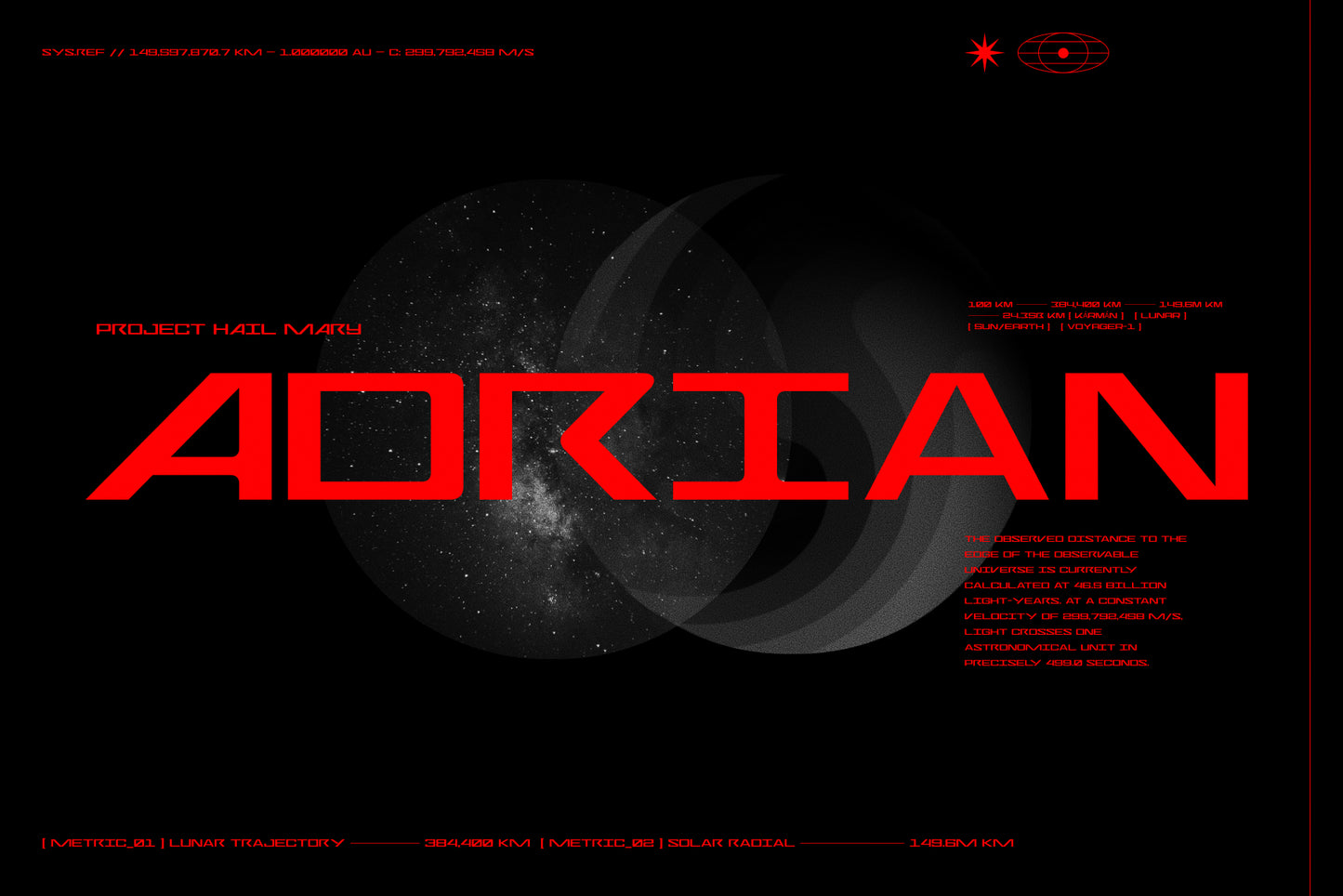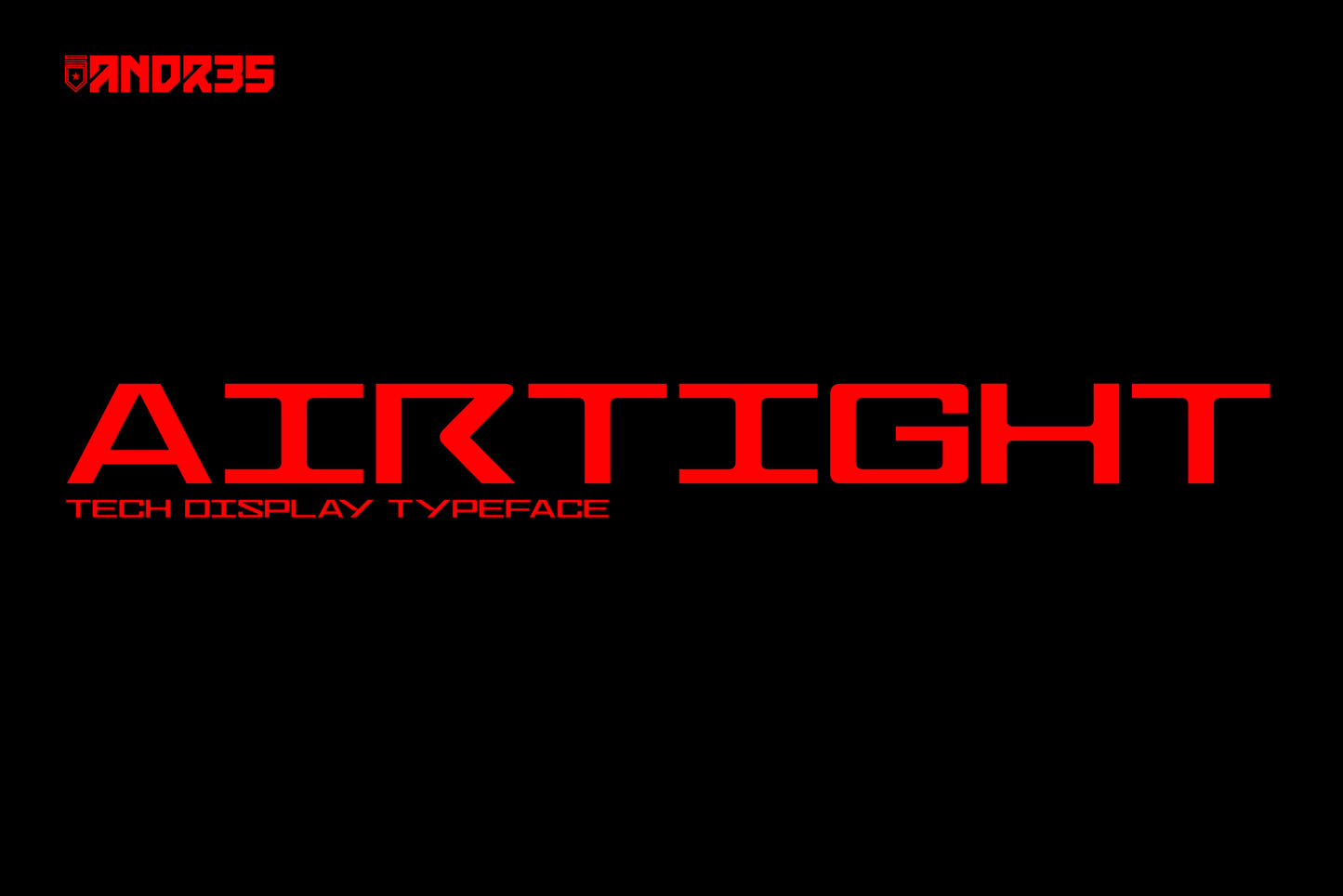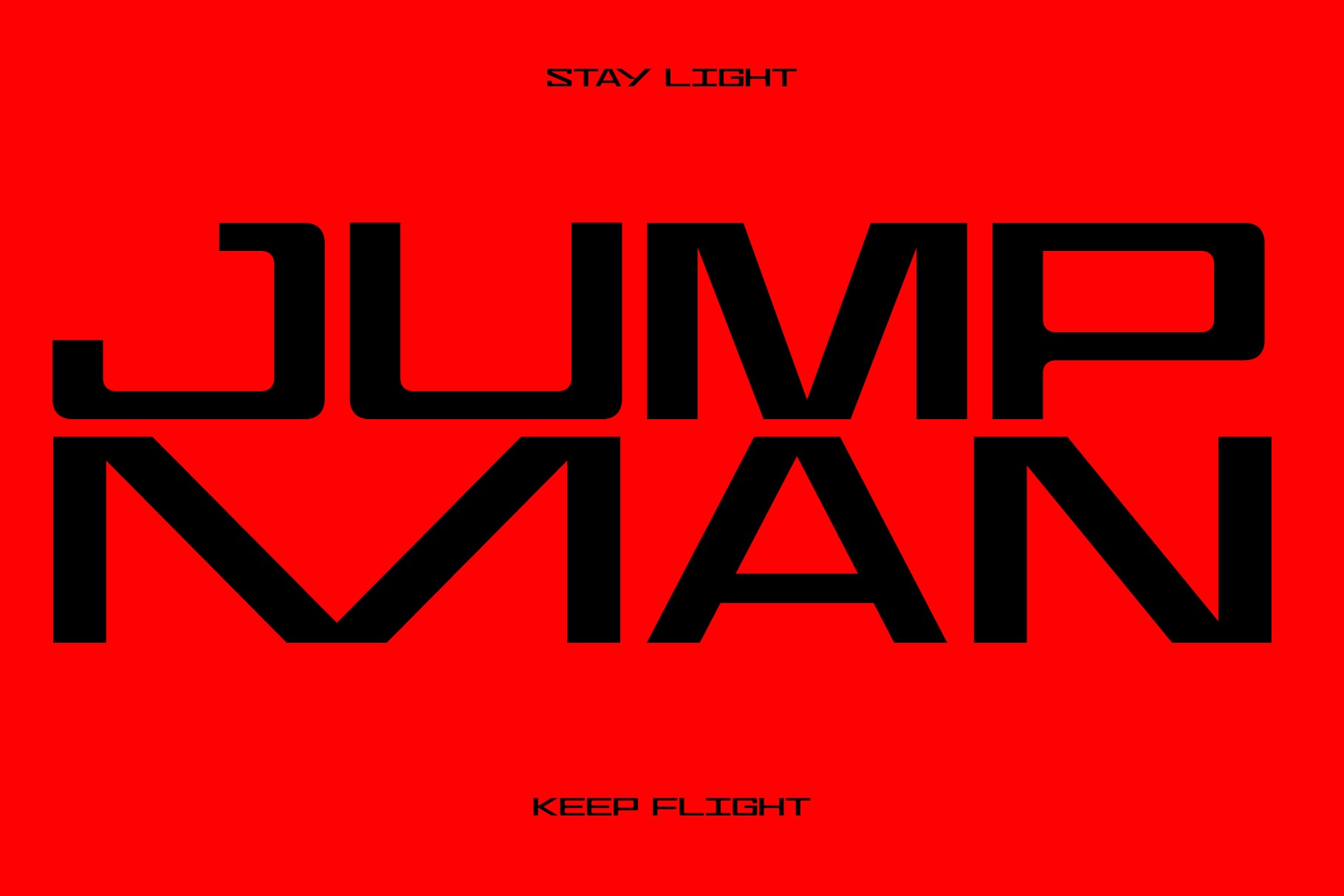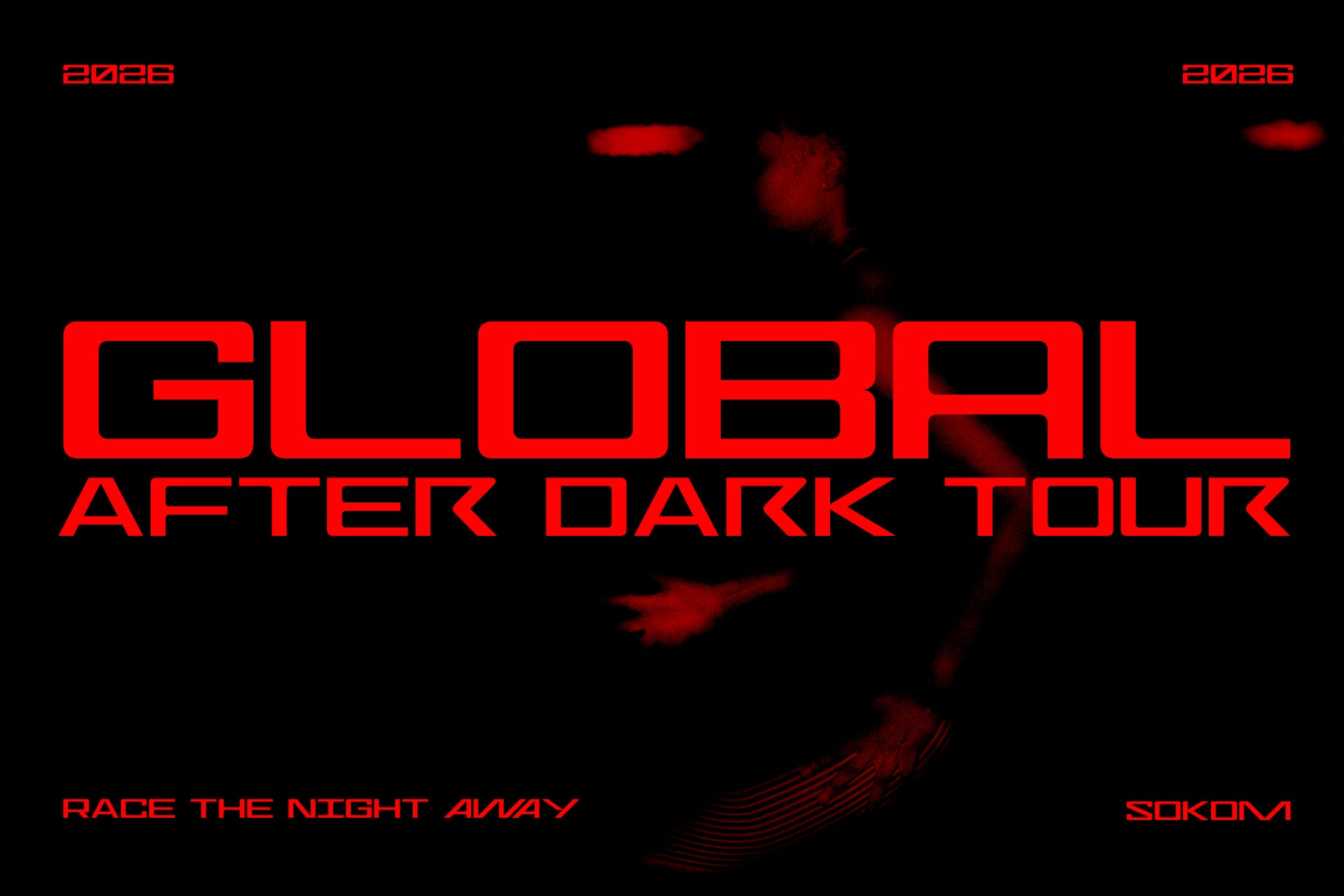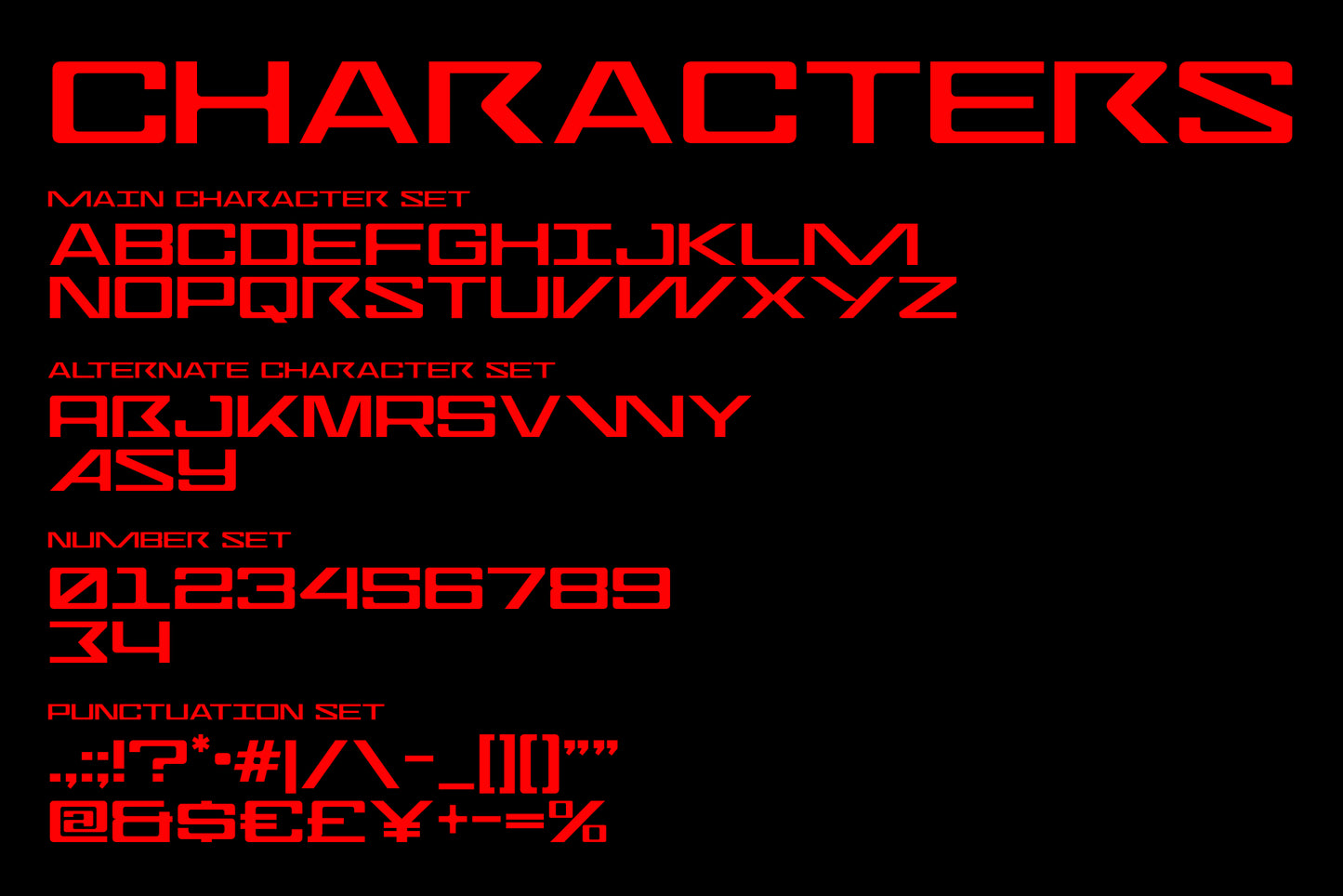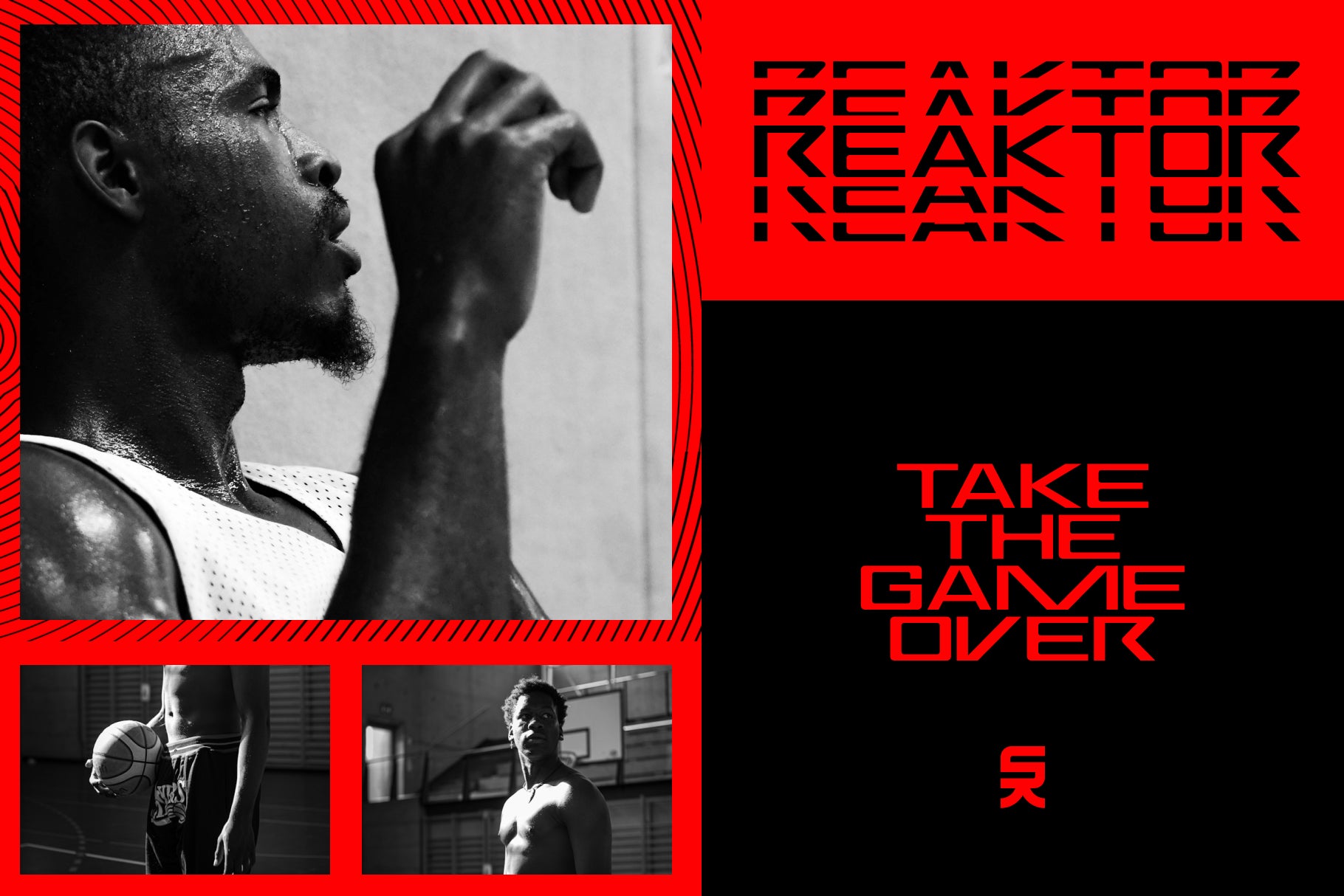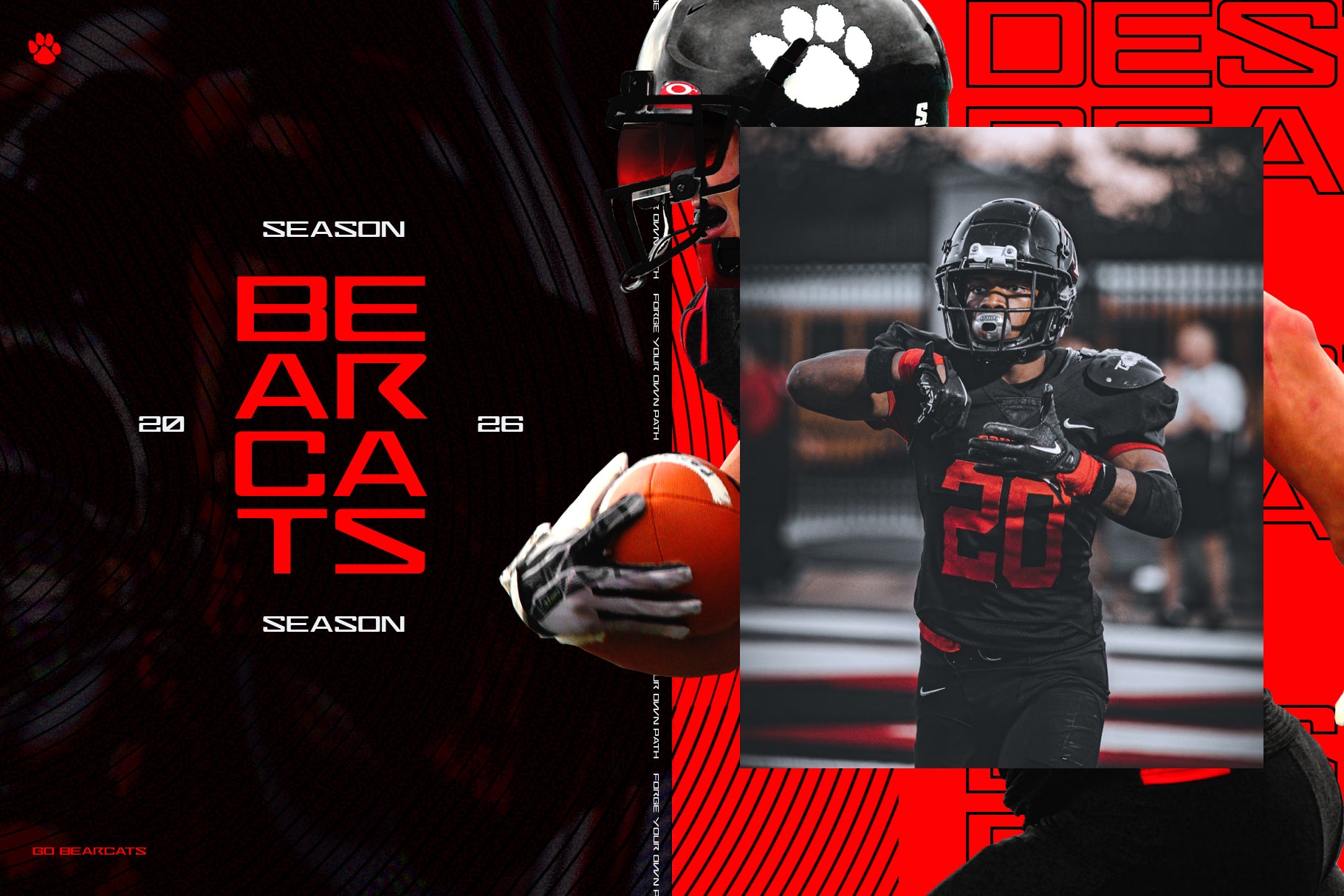
Airtight Display Font
Airtight is a wide, low-profile display typeface engineered to take up space and command attention. Designed around a modern grid structure, Airtight fuses raw performance sportswear aesthetics with a sleek, high-tech industrial edge.
Inspired by the historic, custom typography of Nike and Jordan Brand, Airtight features stretched horizontal proportions and subtle, soft-cornered terminals. The result is a look that feels locked-in, fast, and structurally indestructible, perfect for sports branding, automotive design, and futuristic tech layouts.
Custom Stylized Alternates
While built as a single, high-impact weight, Airtight includes a set of custom alternate glyphs (including stylized forms for A, R, J, K, M, S, V, W, Y). Swap these in to instantly shift your design from clean athletic apparel to aggressive, sci-fi/esports graphics.
Sports & Gym Apparel: Center-chest graphics, jersey numbers, and training gear lockups.
Motorsport & Automotive: Livery graphics, supercar concept branding, and racing sponsor graphics.
Tech & Esports: Gaming UI, sci-fi poster titles, hardware packaging, and stream graphics.
Events & Editorial: Nightlife tour posters, album covers, and wide-grid zine headlines.